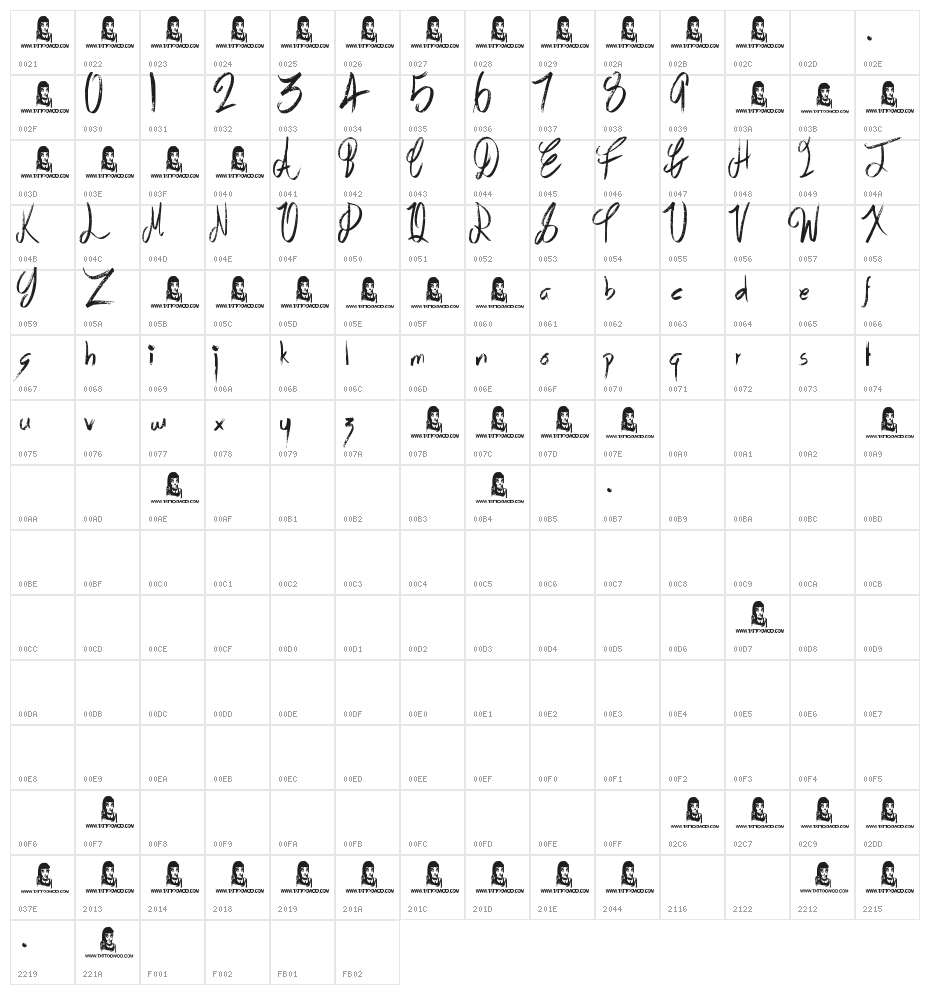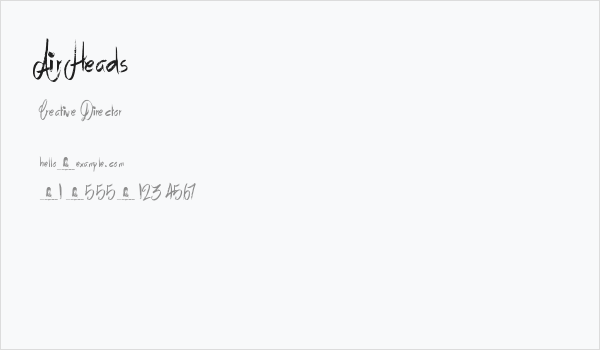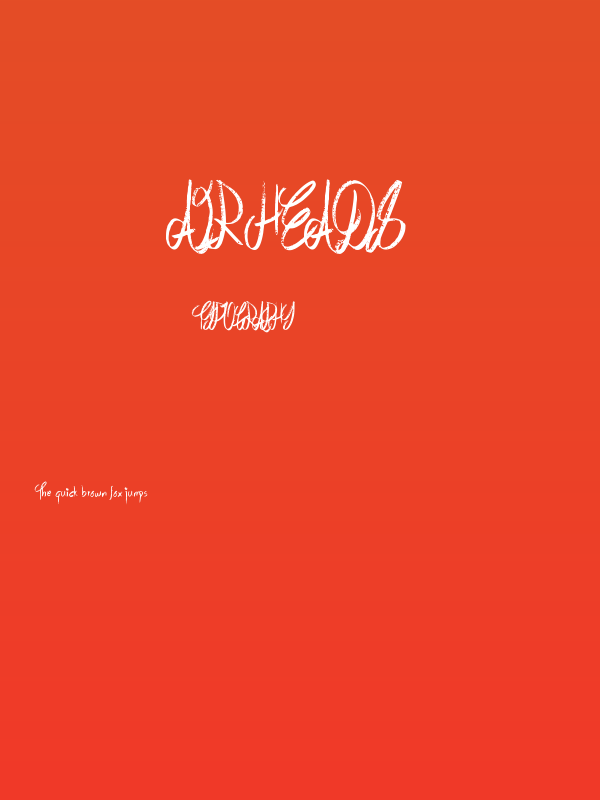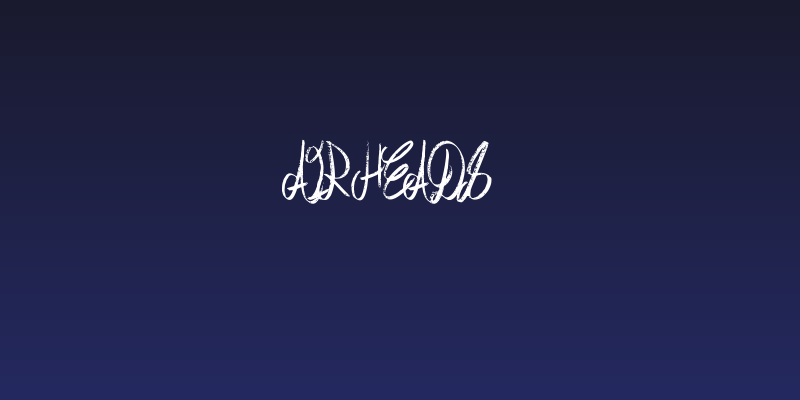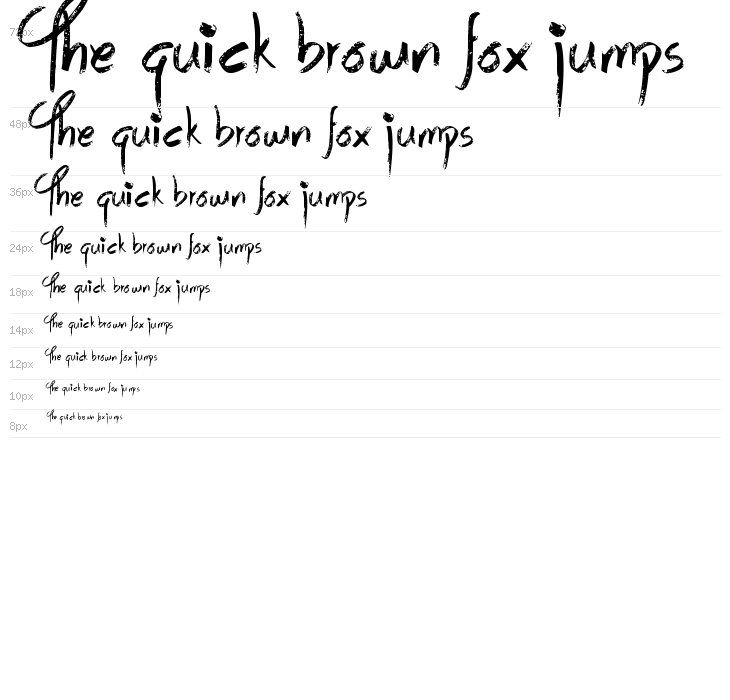
Air Heads Font
Air Heads Description
This font features a dynamic and expressive style, characterized by its bold, brush-like strokes and high contrast. The letters exhibit a hand-drawn quality, with irregular edges and a slightly distressed texture, giving it an energetic and artistic feel. The uppercase and lowercase letters maintain a consistent style, while the numerals and special characters complement the overall aesthetic. This font's unique appearance makes it suitable for creative and eye-catching designs.
| Overall Style | Artistic, Expressive |
| Proposed Projects | Ideal for projects that require a creative and dynamic touch, such as posters, album covers, branding, and artistic merchandise. |